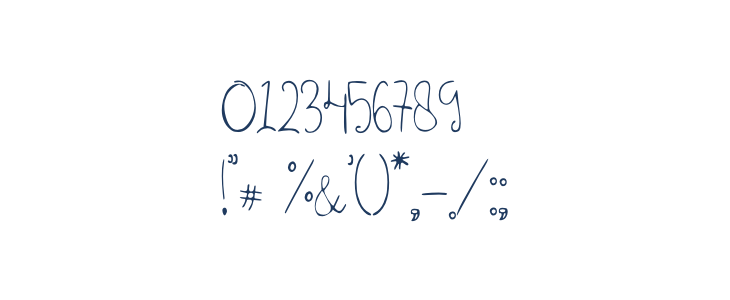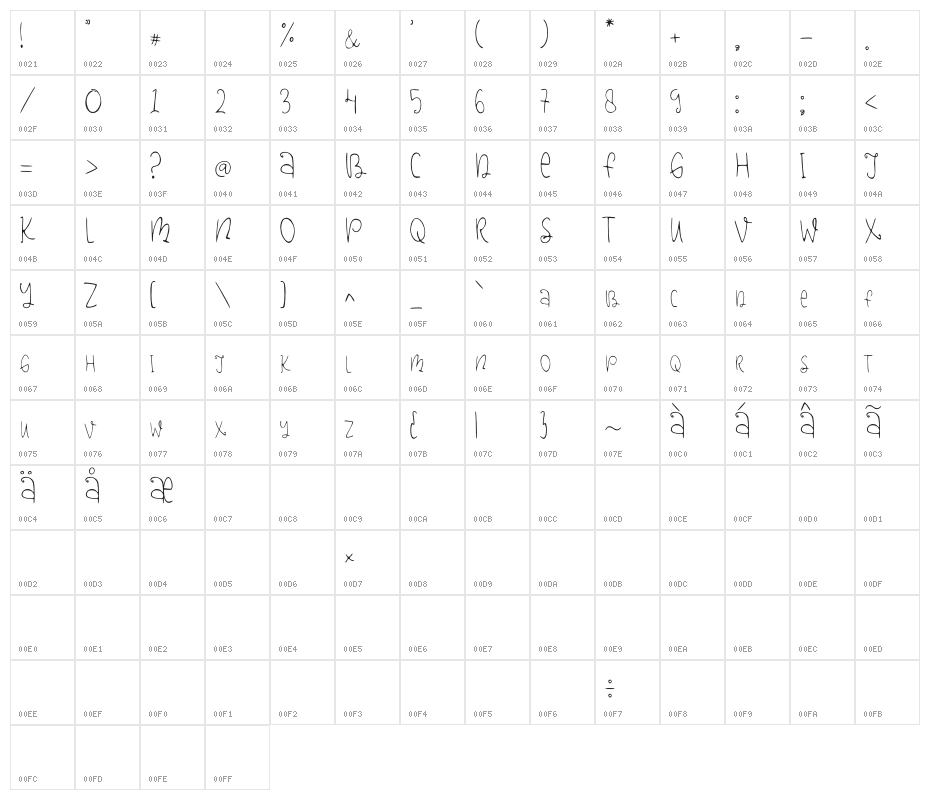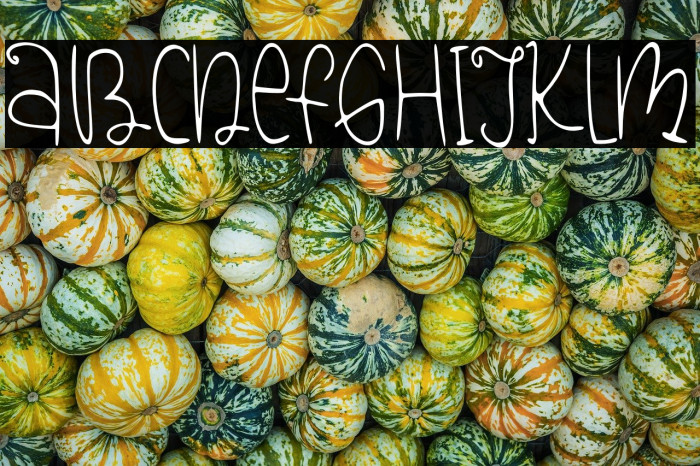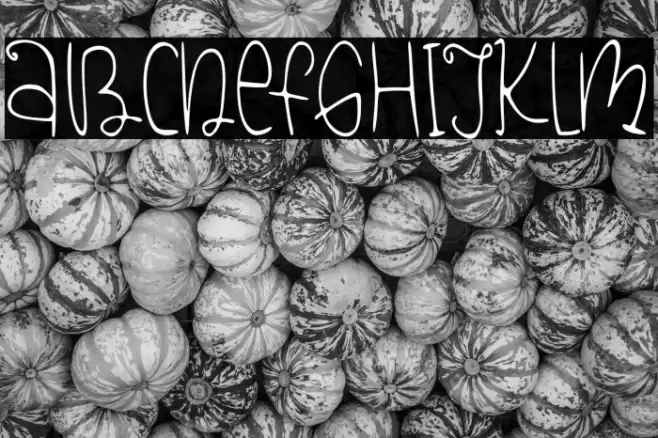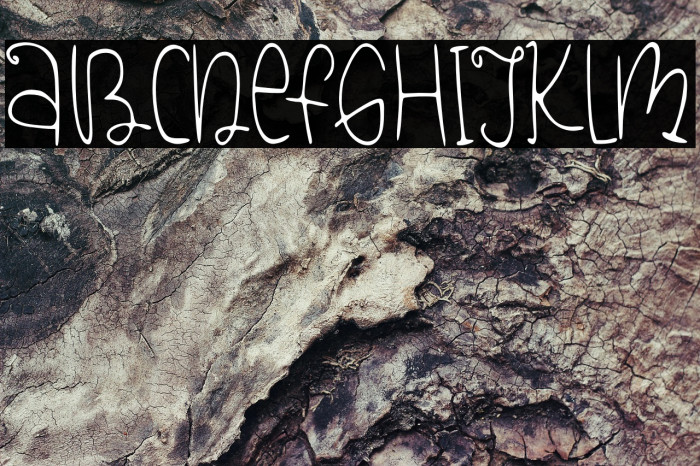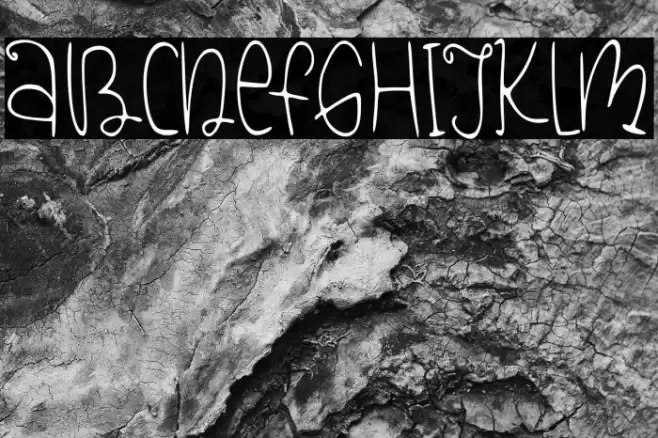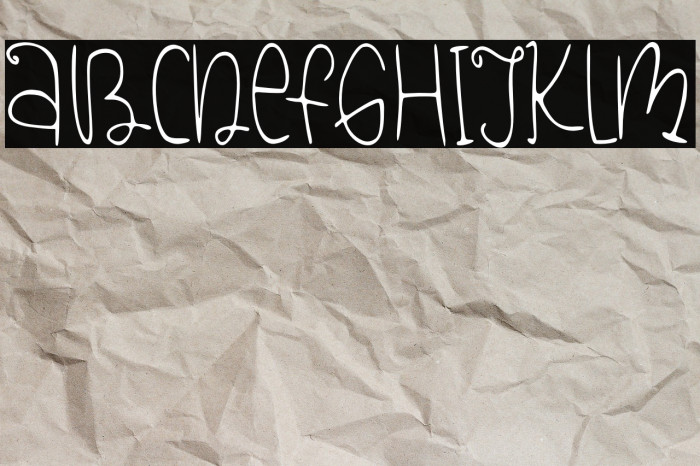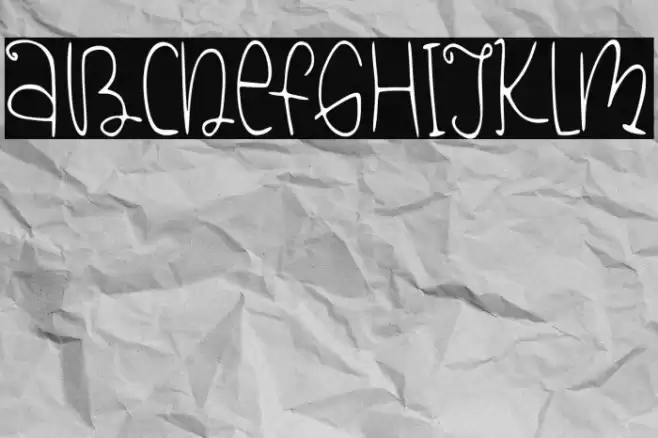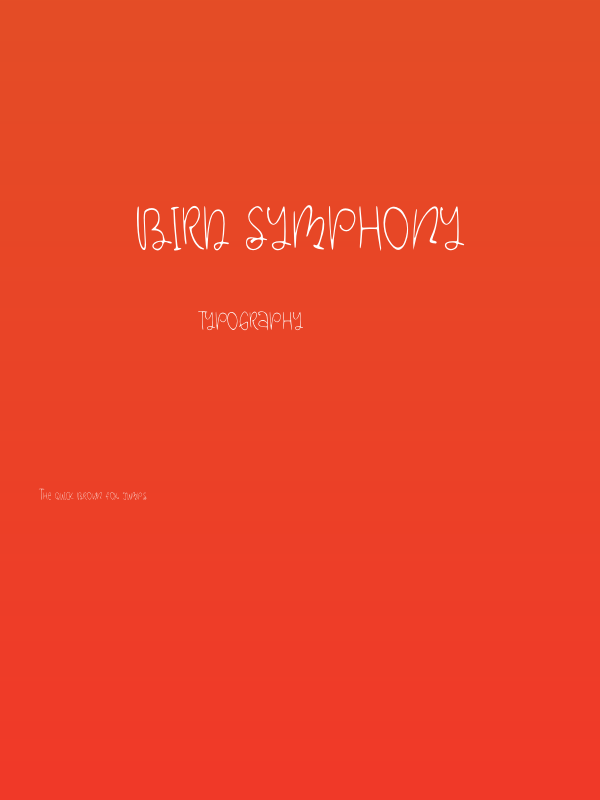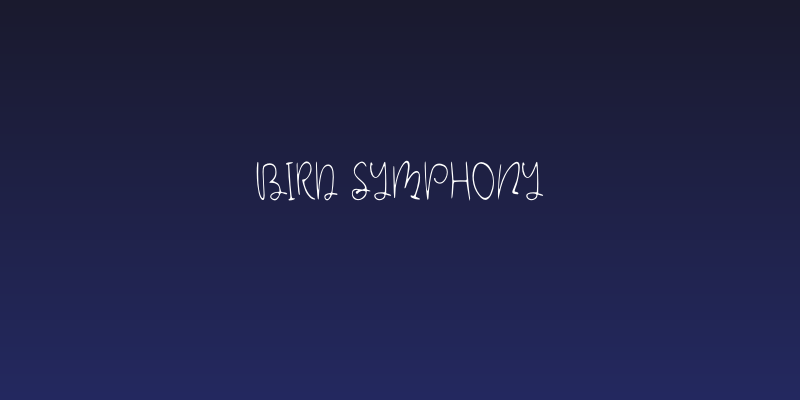
Bird Symphony Font
Bird Symphony Description
This whimsical and playful font features a unique handwritten style with a touch of elegance. Each character is crafted with a flowing, cursive-like quality, giving it a sense of movement and grace. The letters have a consistent stroke width, which adds to its charm and readability. The uppercase letters are tall and slightly narrow, while the lowercase letters maintain a consistent height, creating a harmonious balance. Numbers and special characters are designed with the same playful flair, making them perfect for creative projects. The overall design is both artistic and legible, ideal for adding a personal touch to any design.
| Use Case | Logos, Invitations, Creative projects |
| Proposed Projects | Ideal for greeting cards, invitations, children's books, and creative branding projects. |